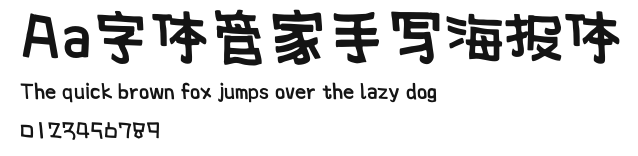
Aa字体管家手写海报体 Preview
• Font Name: Aa字体管家手写海报体
• Font Style: 常规
• Full Font Name: Aa字体管家手写海报体
• PostScript Name: AaZTGJSXHBT
• Designer: Aa
• Manufacturer: 翰美互通(厦门)科技有限公司
• Description: AaZTGJSXHBT is a fantastic font with excellent features designed for user interfaces and electronic communications.
About Aa字体管家手写海报体.ttf
Aa字体管家手写海报体.ttf is a modern, elegant sans-serif font designed for ultimate readability and visual harmony. Perfect for branding, headlines, web design, and print materials.